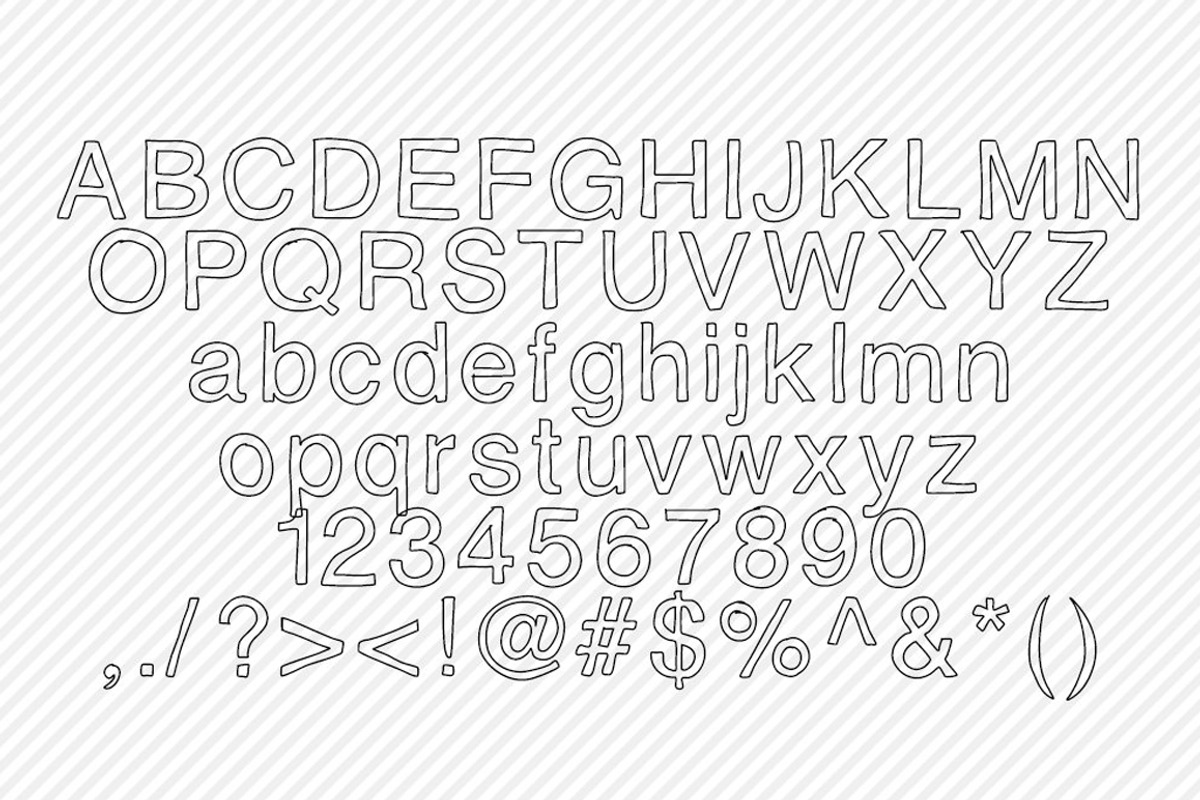
Hollow Hand Drawn Font
Hollow Hand Drawn Font by Polka Dot Pixels is a font selected for branding, posters, packaging, typography.
- upper and lowercase letters, numbers and punctuation included.
Why Hollow Hand Drawn Font is worth a look
Hollow Hand Drawn Font by Polka Dot Pixels fits naturally into Branding, posters, packaging, typography.